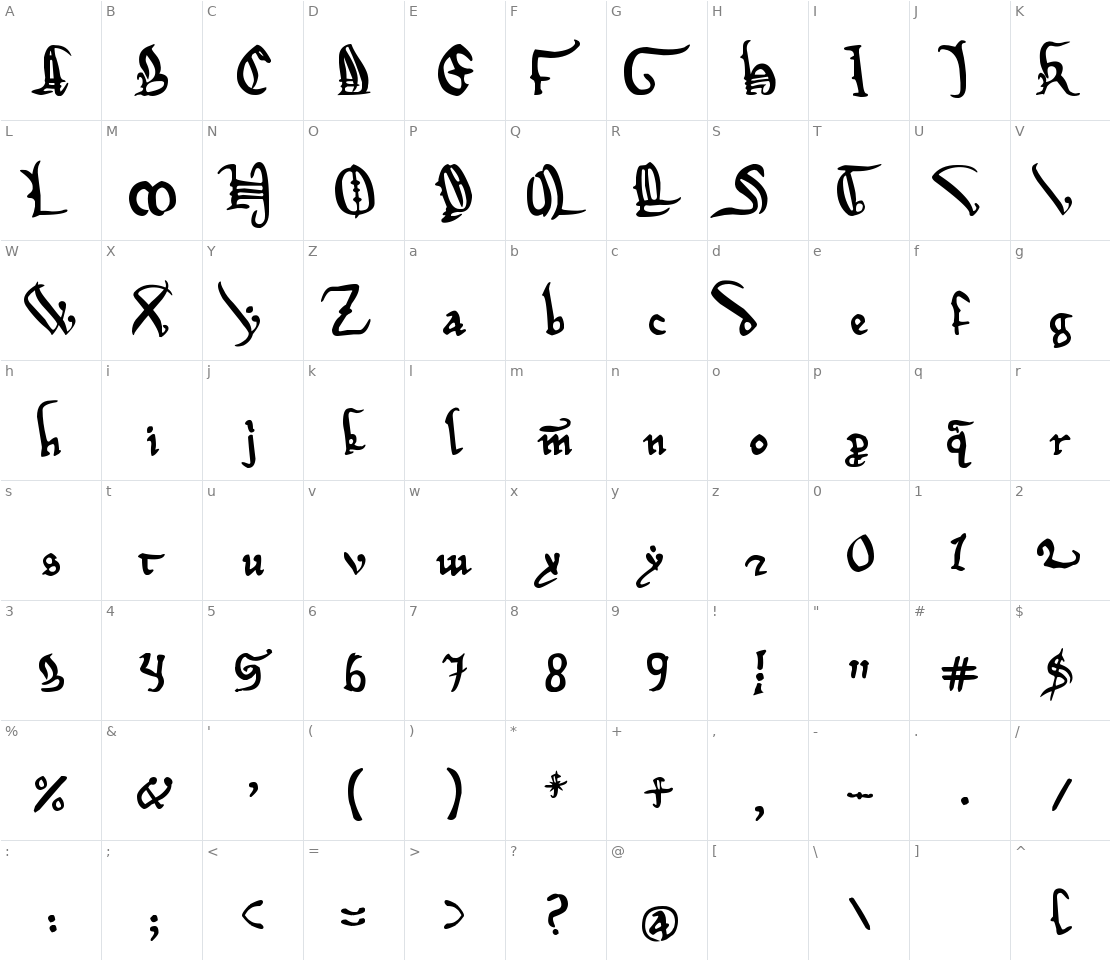
Magna Carta
Magna Carta is an uncial display face by John H. Schmidt that draws directly from the rounded, open letterforms of medieval manuscript writing. The calligraphic strokes carry a sense of historical weight and formality, recalling the look of illuminated charters and early European legal documents. Best used for headlines, drop caps, and decorative applications where you want to evoke genuine antiquity rather than generic "old-timey" styling.